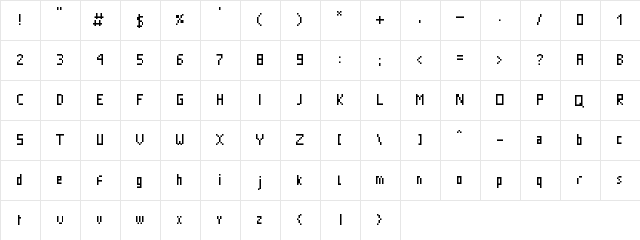
Yrael Oldschool Regular
| Designer | Yrael |
Design Context for Yrael Oldschool Typeface
Yrael Oldschool has the warm character of retro typography — evoking diners, record sleeves, and the golden age of print advertising.
Font Pairing: Combine Yrael Oldschool with a simple slab or neutral sans — period-accurate companions reinforce the vintage feel without competing for attention.
Pro Tip: Lean into Yrael Oldschool's period character by pairing it with aged paper textures, muted colour palettes, and vintage illustration styles.